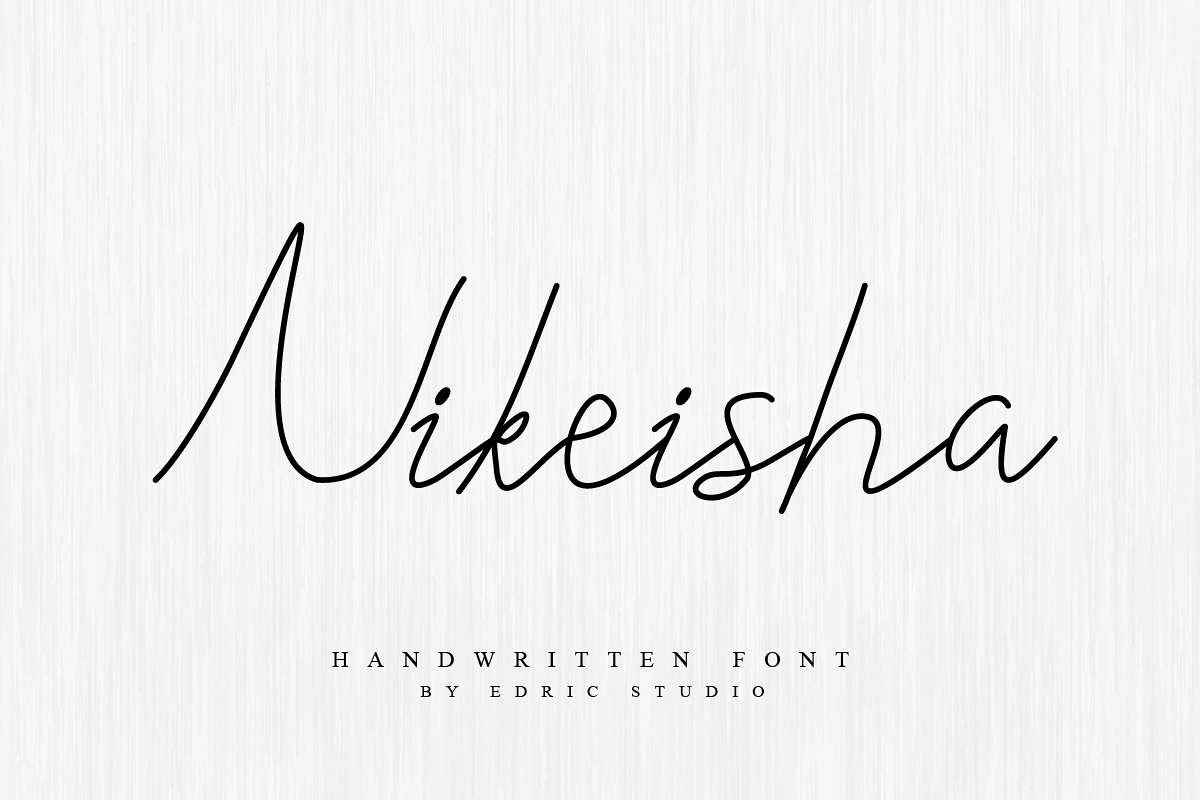
Nikeisha
Hello hello hello good folks!Introducing: a awesome font by Edric Studio  : Nikeisha is a Monoline Cursive script handwriting font, handmade here on our studio : Indonesia.This is a new one line or monoline script font with handwriting style that has unique glyhps set that is the elegant, strong, vintage, stylish, sophisticated, complex, speed and classic pen / pencil/ monoline style. Also it has full lowercase alternatives on each gplyhs. Nikeisha Cursive Font will be Perfect for : branding, logo, stationery, business card, signage, flyer, brochure etc. There are many industries that is suitable for this font : art, real estate, services, law firm, game, music, technology, travel, hotel , makeup artist, novelist, etcYou’ll get all files formats: